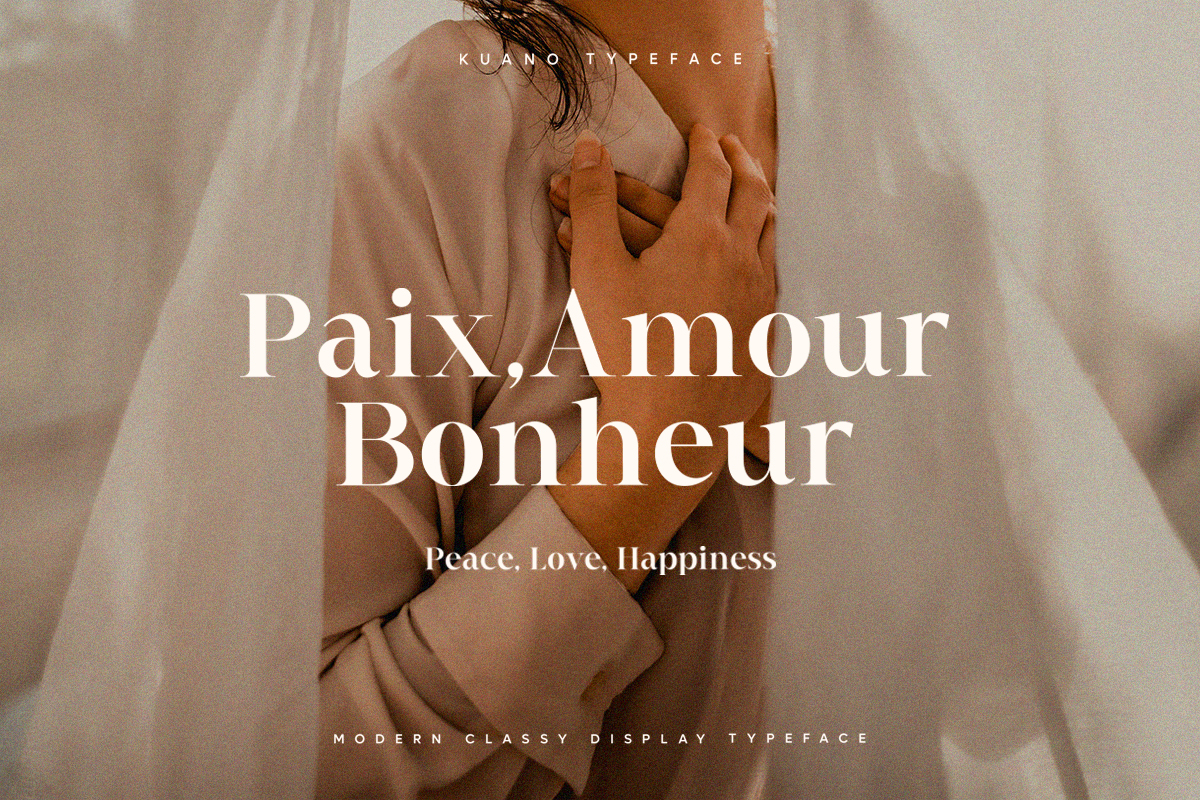
Kuano Serif Font
This Is Classy Display Serif Character Inspired By Modern and Ligature Characters. Kuano will be perfect for many projects: logo, wedding designs, social media posts, advertisements, product packaging, product designs, label, photography, watermark, invitation, or whatever project you’re working on.